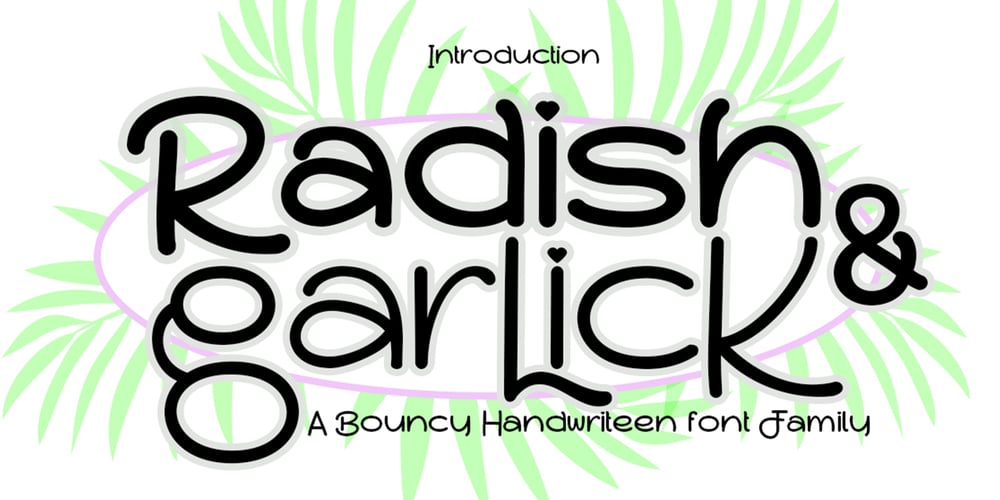
Radish & Garlick Font Family was designed by Ibram Syah and published by Jehansyah. Radish & Garlick contains 3 styles and family package options. This font is inspired by clean handwriting that is a bit simple, but still maintains elegance and creates a luxurious feel in the design,Radish and garlick This handcrafted font, so cute and so cute for any design you want to look simple yet aesthetically pleasing,use this design for all your design needs, it will potentially be your best font choiceuse it for all your design needs, print media, brochures, social media, social media status, letters, invitations, and much more.Thank you very Much